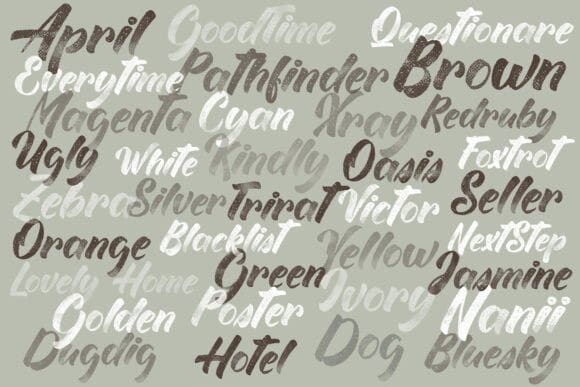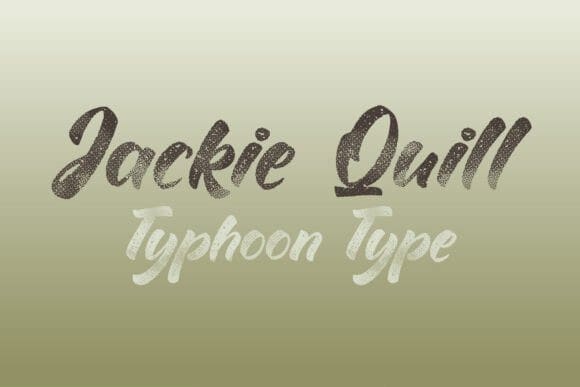
Jackie Quill Font
Jackie Quill Font is a bold and stylish font inspired by the elegant strokes of flat-brush writing. Designed in a retro ribbon style, it embodies the timeless charm of vintage aesthetics. The overall look features slightly slanted, thick characters that exude a sense of strength and sophistication.
Building upon its classic design.
Jackie Quill incorporates a unique halftone texture with soft-to-bold gradients, adding depth and distinct personality to each letter. This thoughtful detail makes the font stand out with its unmistakable character, making it perfect for projects that seek a blend of retro elegance and modern creativity.